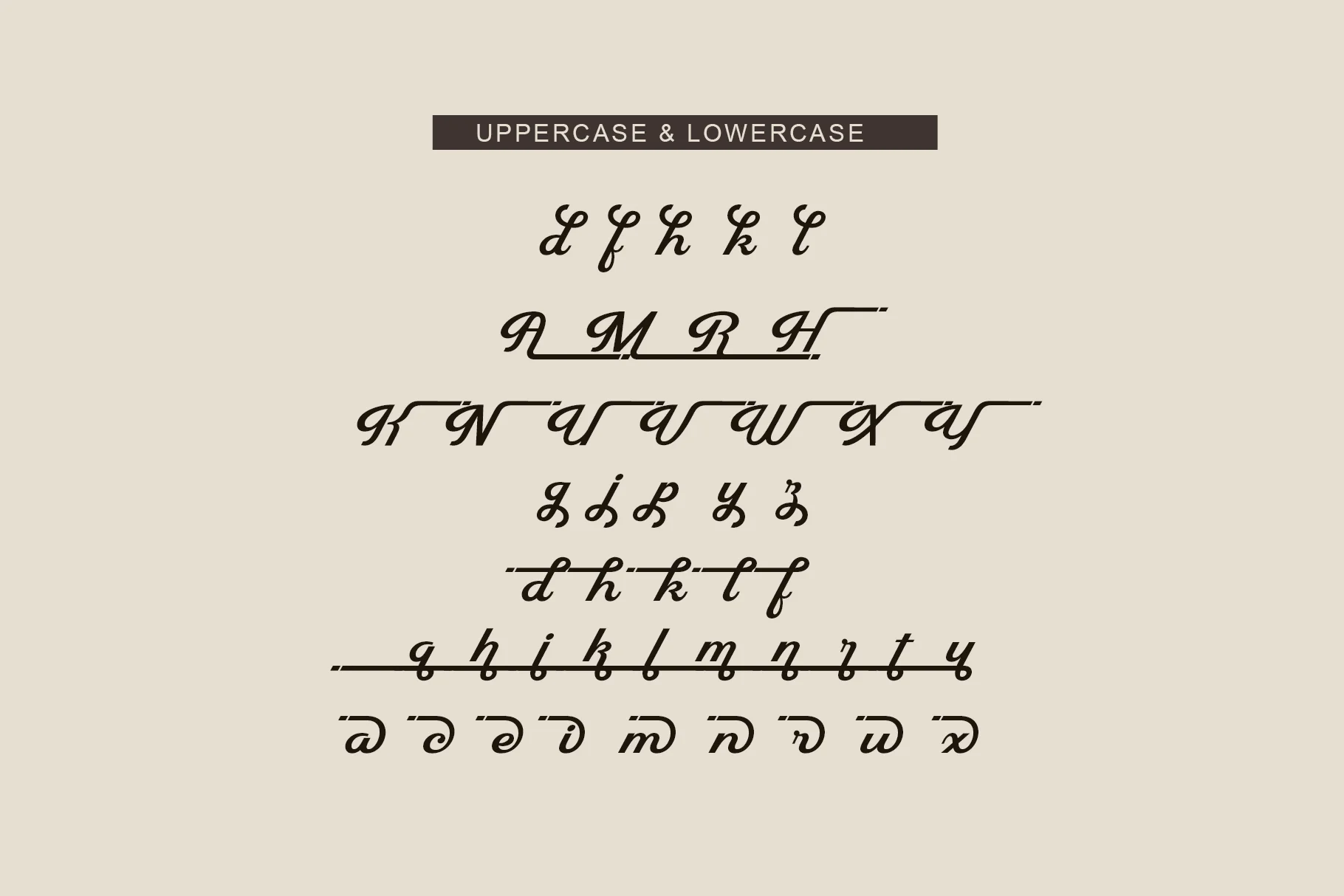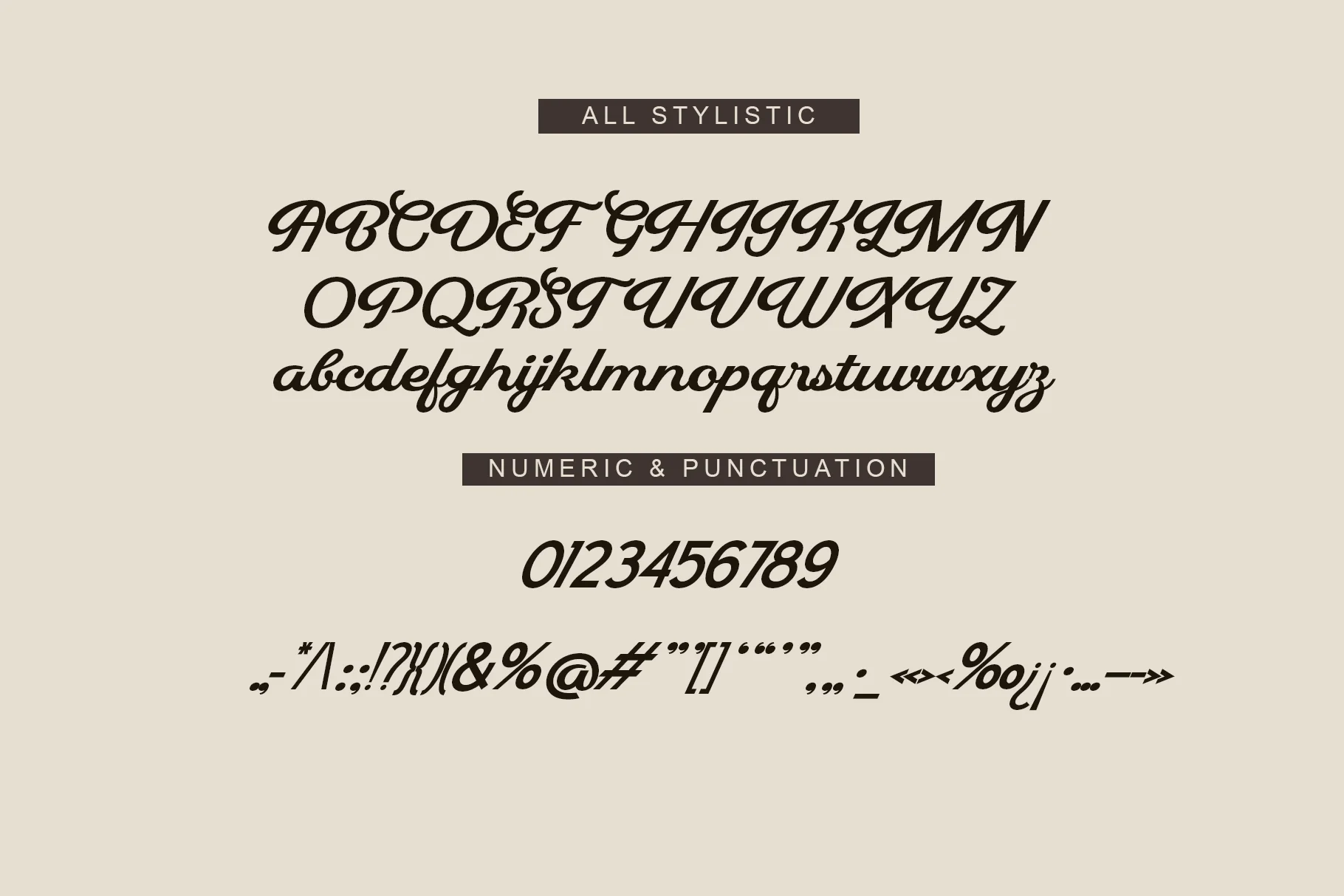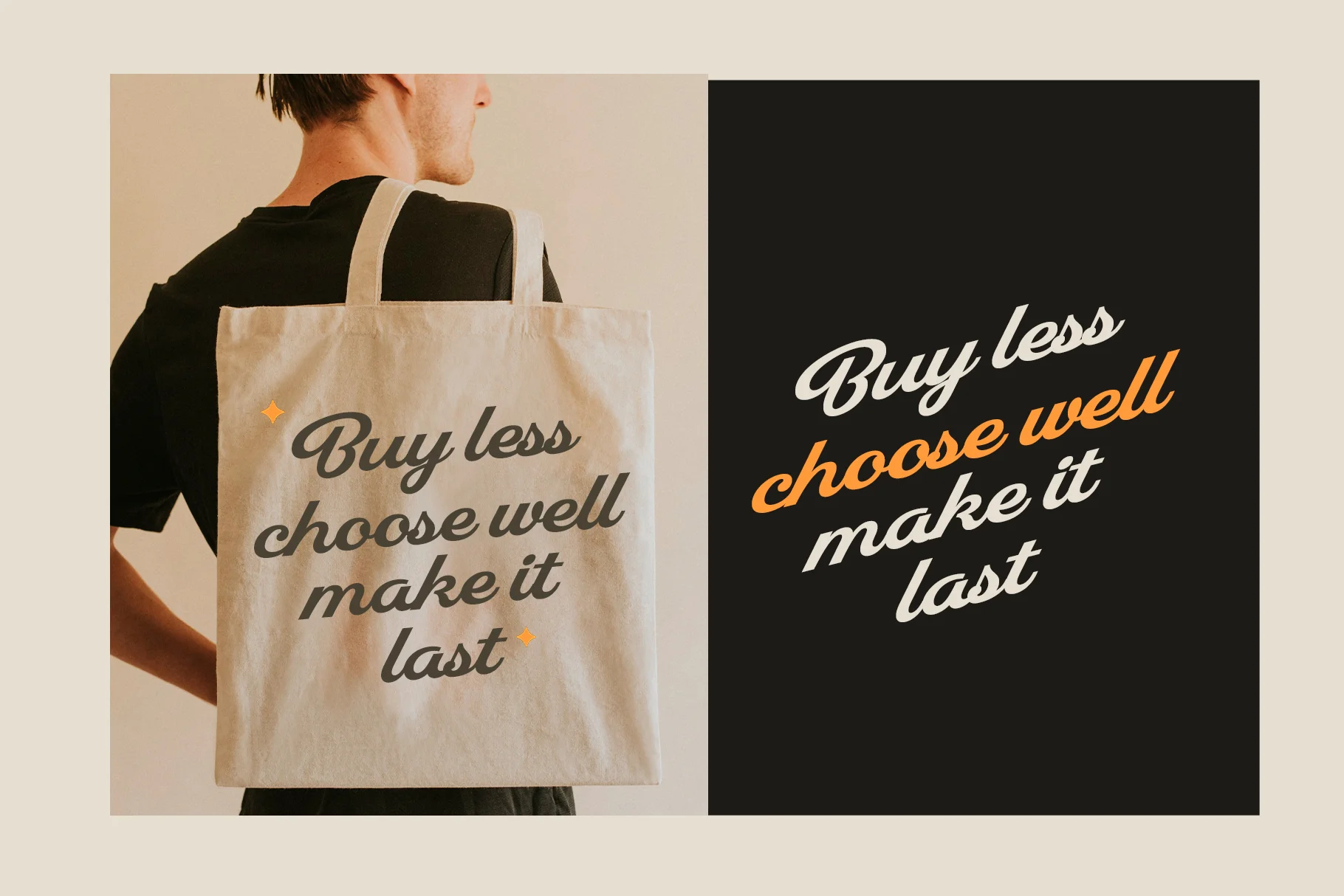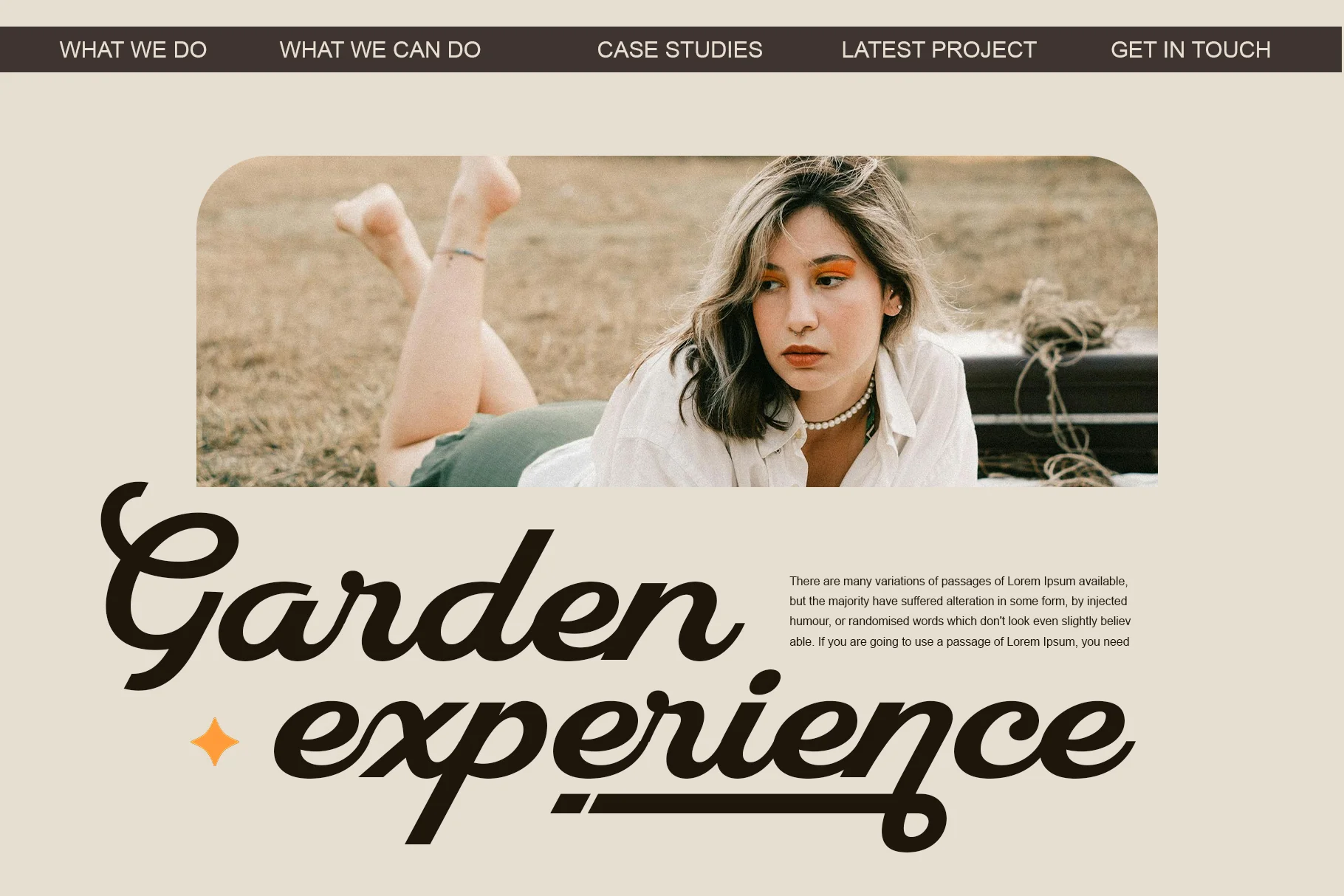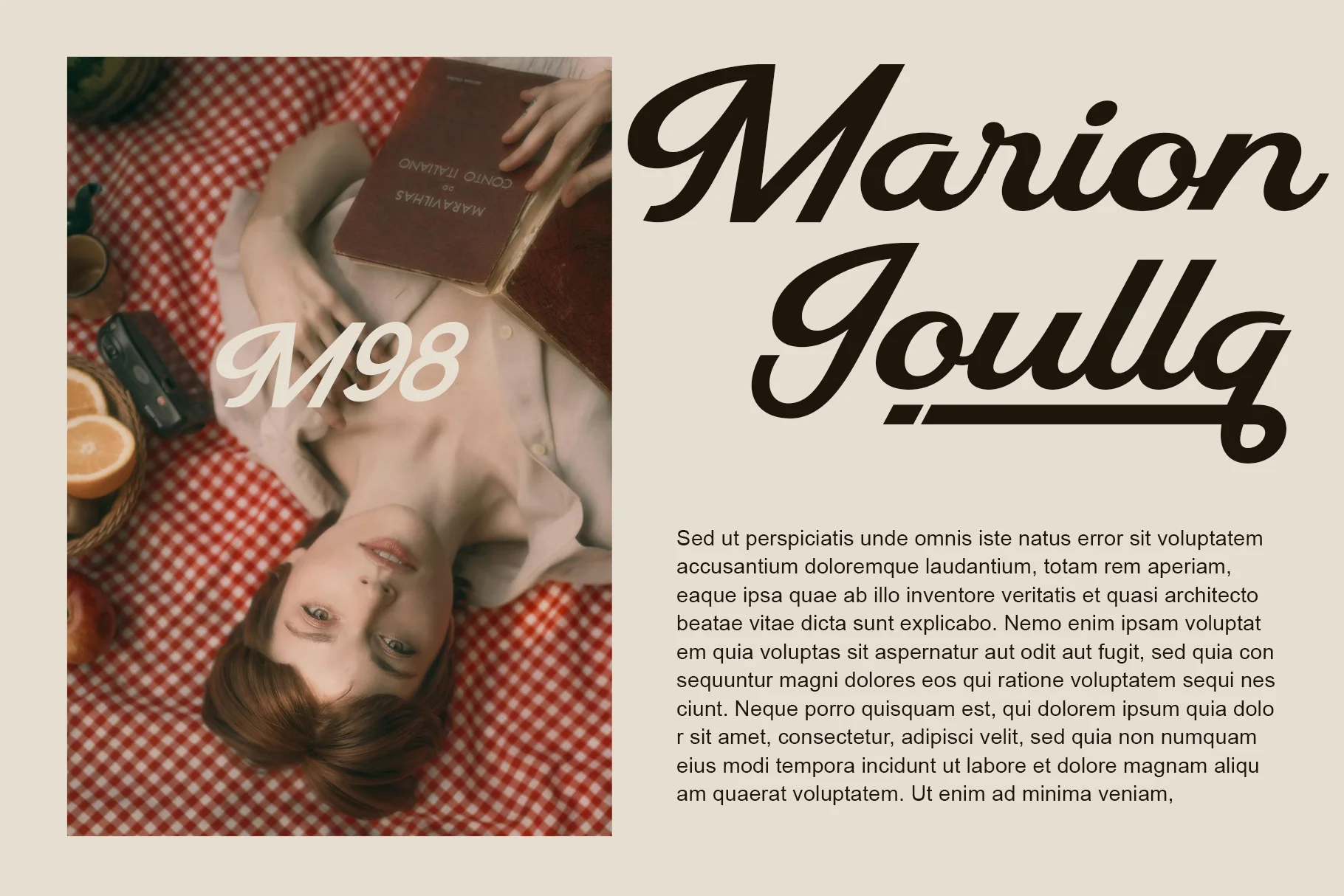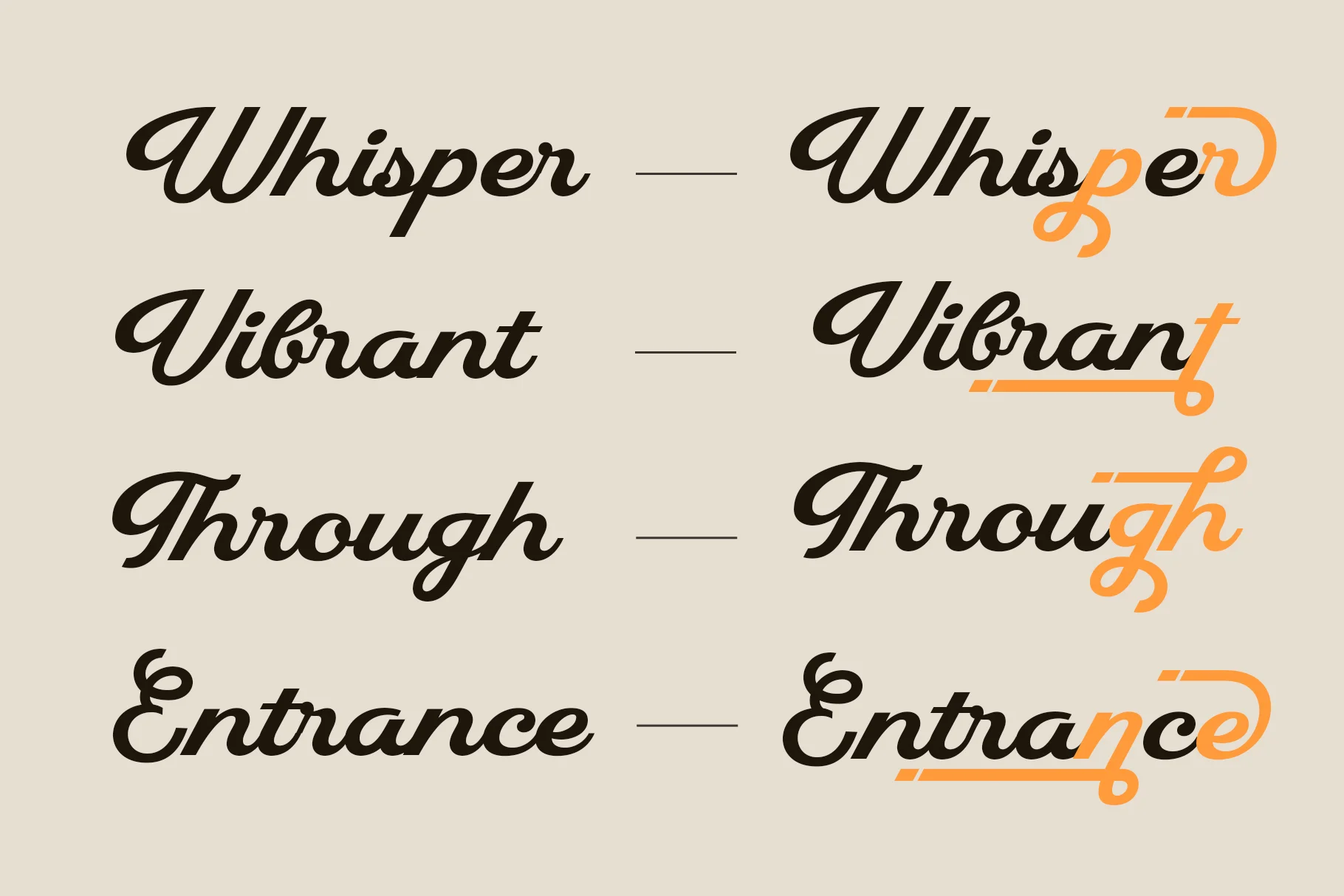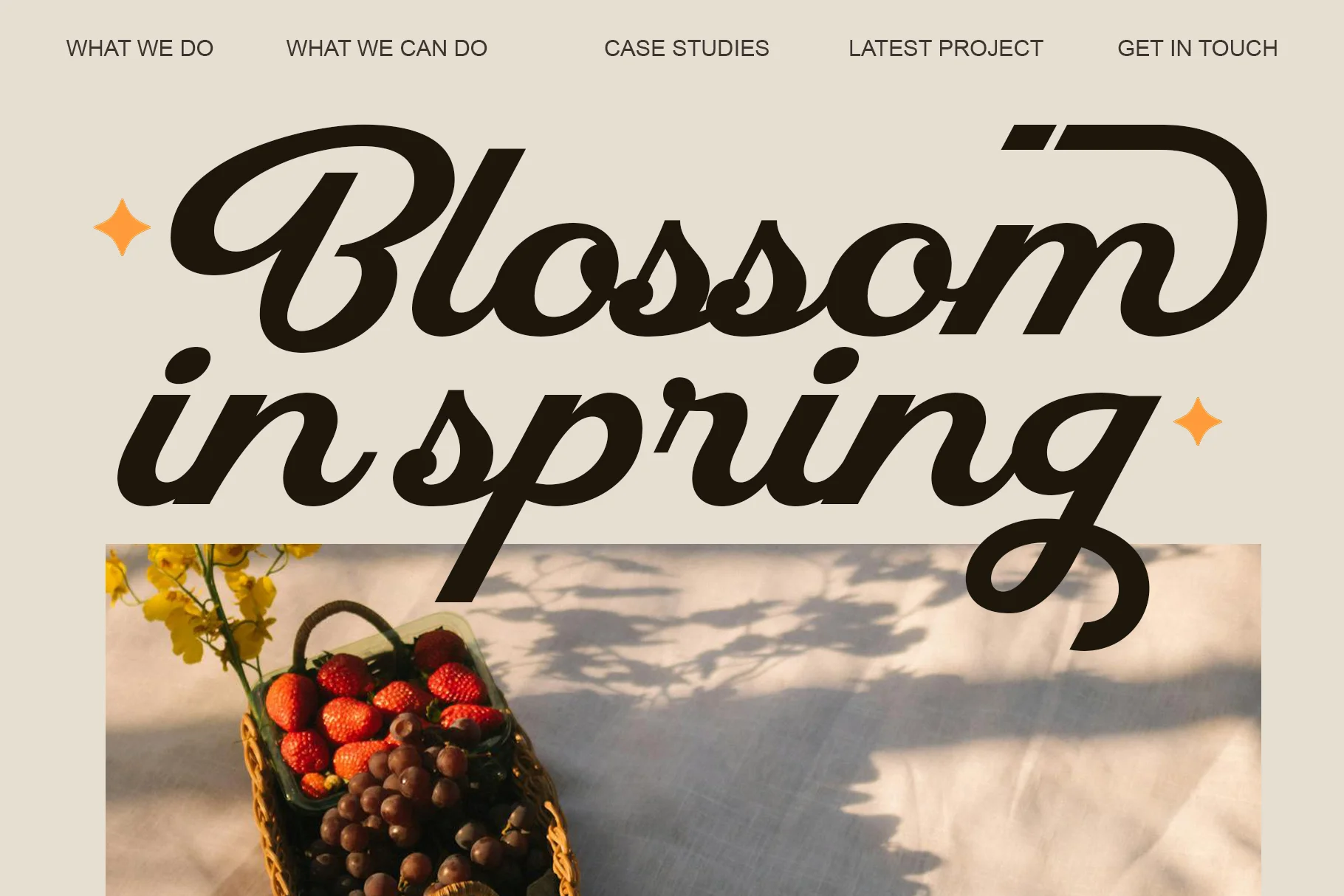
Dream Falling
"Dream Falling"a script or connected handwriting typeface. The font exudes a vintage, classic, and romantic atmosphere with a touch of nostalgia. Features consistent thick strokes with smooth, elegant curves. There are significant swashes (long decorative lines).
Features
- Uppercase and Lowercase – Complete range of letter cases for diverse uses.
- Numerals – Includes numbers for various creative needs.
- Functional – Designed for efficiency and aesthetic appeal.
- Multilingual Support – Includes characters for multiple languages.
- Stylistic Variations – Offers creative style options.